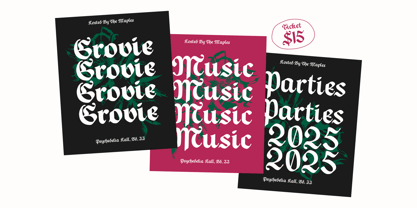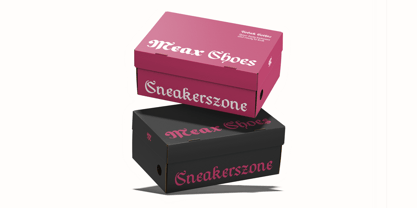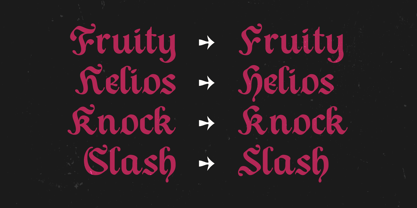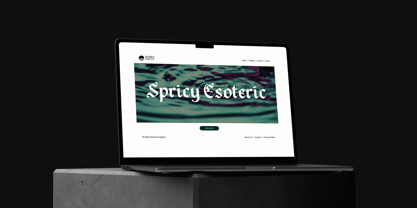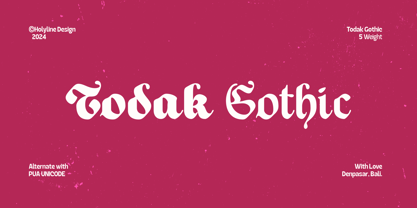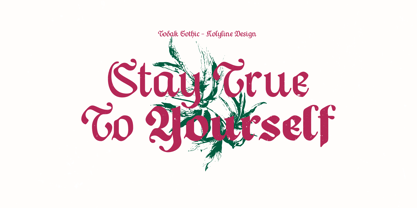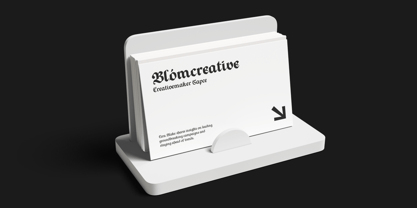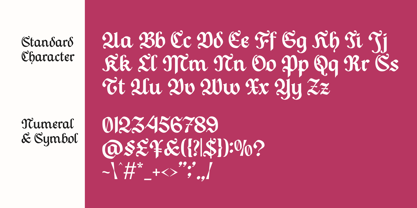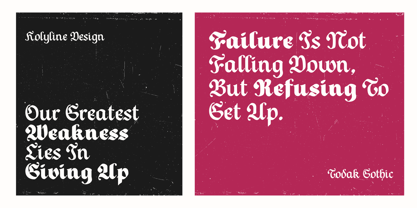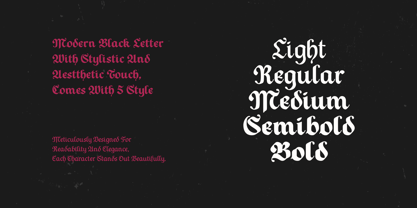
Todak Gothic
by holyline design
The Todak Gothic Font Family was designed by Bagus Beratha Wijaya and published by holyline design. Todak Gothic contains 5 styles and family package options. More about this family
Todak Gothic is a bold and versatile blackletter display font that blends the timeless elegance of Old English-style typography with the edgy appeal of retro gothic design. Its modern classic style adds a distinctive touch to any project, balancing tradition with contemporary flair.
With 5 weights ranging from thin to bold, Todak Gothic provides flexibility for various design applications. It also includes alternates , enabling designers to effortlessly create smooth curves and intricate shapes for unique and captivating compositions. Ideal for editorial designs, packaging, and artistic statements, Todak Gothic delivers a perfect mix of sophistication and character, ensuring your creations leave a lasting impression.